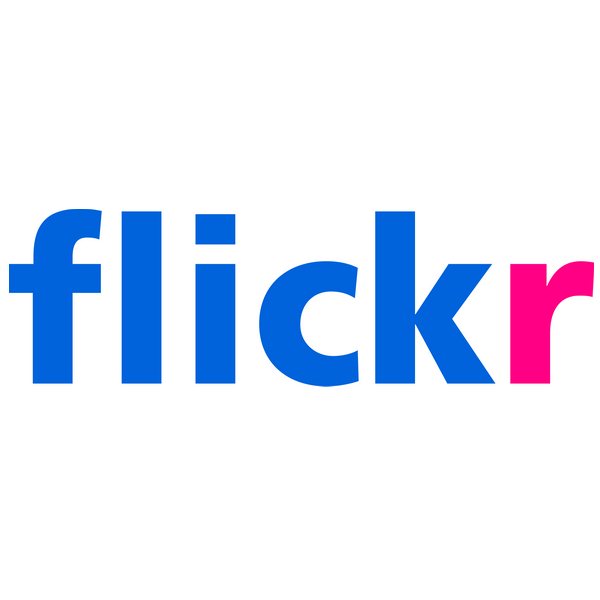
Flickr Font
Fonts in UseFlickr is an online photo-sharing and management platform that allows users to upload, organize, and share their photos and videos with others. It was launched in 2004 and is owned by SmugMug.
Flickr's logo consists of its logotype, where the letter "flick" is depicted in blue and "r" in pink. The font utilized in its logo is similar to Frutiger, a renowned commercial font developed by Adrian Frutiger back in 1976.